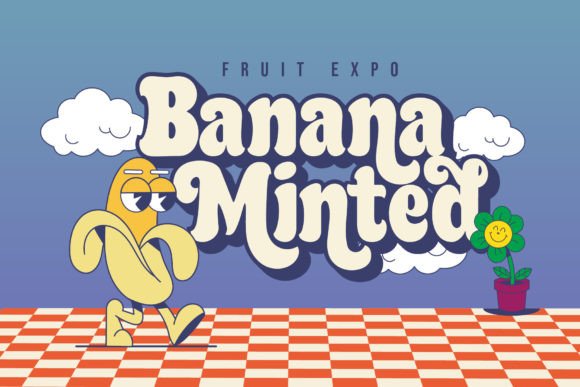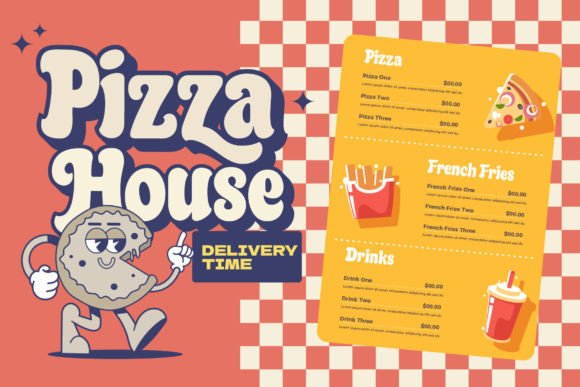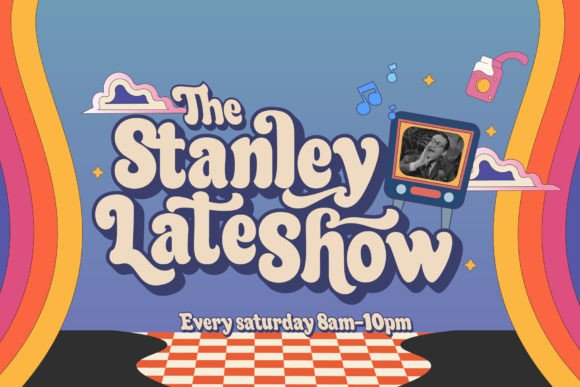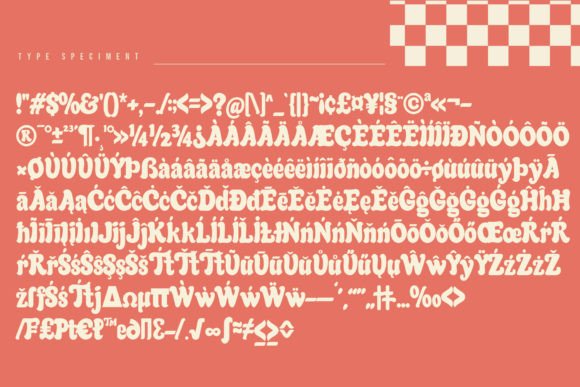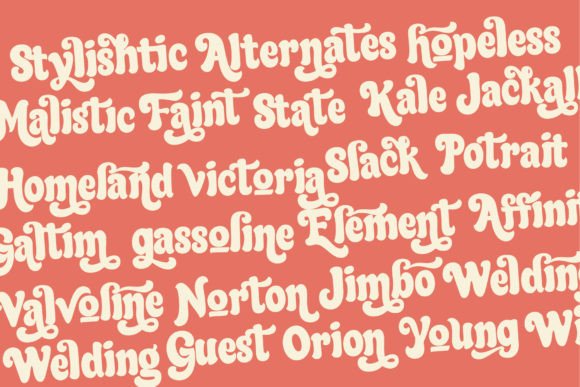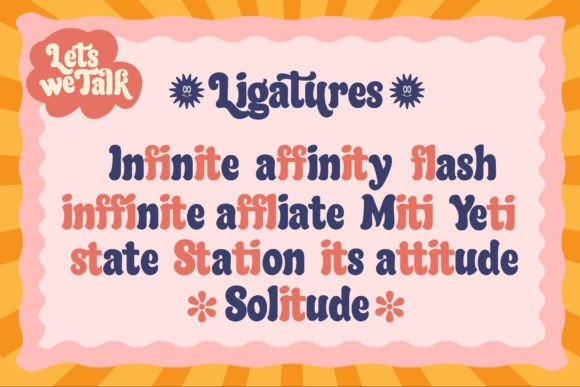
Forever Young Font: A Groovy Disco 70s Retro Font for Your Design Projects
Are you a designer or crafter looking for a font that captures the vibrant and flashy style of the disco era? Look no further than the Forever Young Font, a disco 70s retro font that’s sure to bring a touch of nostalgia and fun to your design projects. In this article, we’ll explore the characteristics of disco fonts, their uses, and why Forever Young Font is a great choice for your creative endeavors.
The Disco Era: A Time of Funky Fashion and Design
The 1970s disco era was a time of great creativity and self-expression, marked by flashy fashion, vibrant colors, and a lively music scene. The design of the era reflected this, with bold, playful, and over-the-top typography that captured the energy and excitement of the times. Disco fonts, in particular, were characterized by their unique design elements, such as funky shapes, curves, swirls, and exaggerated serifs.
Characteristics of Disco Fonts
Disco fonts are known for their bold, flashy, and eye-catching design. Some common characteristics of disco fonts include:
- Funky shapes: Disco fonts often feature unconventional and geometric shapes, such as curves, swirls, and exaggerated serifs.
- Bright colors: Disco fonts are often paired with bright, bold colors that reflect the vibrant and lively spirit of the era.
- Playful typography: Disco fonts often feature playful typography, such as irregular letterforms, bold lines, and decorative elements.
Uses of Disco Fonts
Disco fonts are versatile and can be used in a wide range of design projects, including:
- Branding: Disco fonts can be used to create bold and eye-catching logos that capture the essence of a brand.
- Posters: Disco fonts are perfect for creating posters that advertise events, products, or services.
- Packaging: Disco fonts can be used to create eye-catching packaging that stands out on store shelves.
- Digital design: Disco fonts can be used in digital design projects, such as social media graphics, website headers, and email newsletters.
Forever Young Font: A Disco 70s Retro Font for Your Design Projects
Forever Young Font is a disco 70s retro font that’s designed to capture the bold, flashy, and vibrant style of the disco era. This font features:
- Funky shapes: Forever Young Font features unconventional and geometric shapes, such as curves, swirls, and exaggerated serifs.
- Playful typography: This font features playful typography, including irregular letterforms, bold lines, and decorative elements.
- Customization: Forever Young Font is highly customizable, allowing you to adjust the font size, color, and style to fit your design needs.
Why Choose Forever Young Font?
There are many reasons why Forever Young Font is a great choice for your design projects:
- Unique design: Forever Young Font features a unique design that’s sure to stand out in your design projects.
- Versatility: This font is highly versatile and can be used in a wide range of design projects, from branding to packaging.
If you’re looking for a font that captures the bold, flashy, and vibrant style of the disco era, look no further than Forever Young Font. This disco 70s retro font is perfect for designers and crafters who want to add a touch of nostalgia and fun to their design projects. With its funky shapes, playful typography, and customization options, Forever Young Font is sure to be a hit in your design projects.